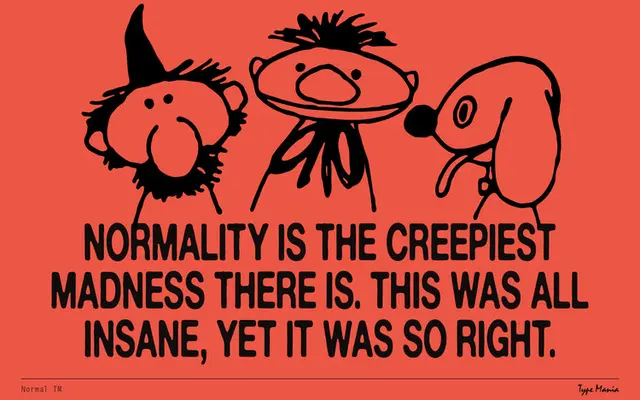
Normal TM
A single-weight sans serif with two stylistic sets and contextual alternates that rotate automatically to give layouts an organic, varied feel.
Designed by Type Mania, Normal TM uses contextual alternatives and two stylistic sets to shuffle glyph variants without manual intervention, keeping text from looking mechanically uniform. The 270-glyph set covers upper and lowercase, diacritics, ligatures, numbers, punctuation, currency and mathematics. Available in OTF and TTF for commercial use, with WOFF2 added in the extended licence.
Described as a sans serif with contextual alternates and stylistic sets producing organic variation; no further structural detail places it beyond a general grotesque classification.